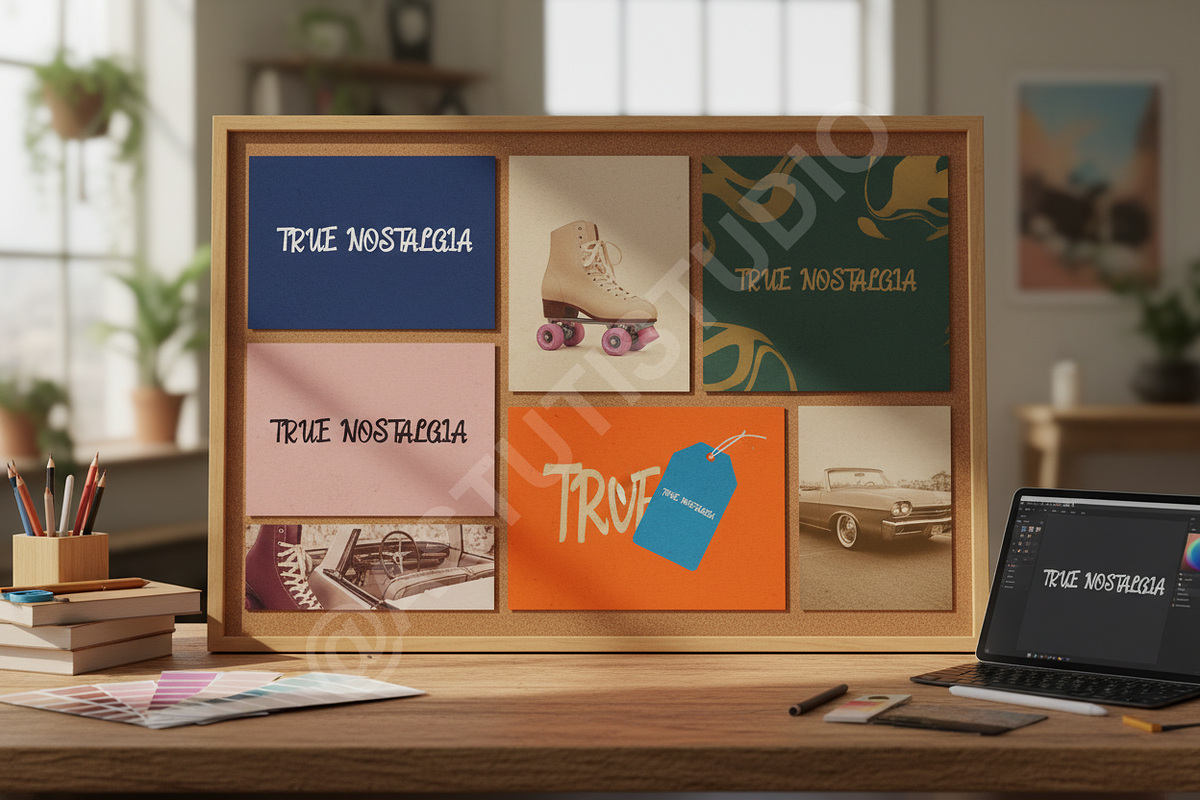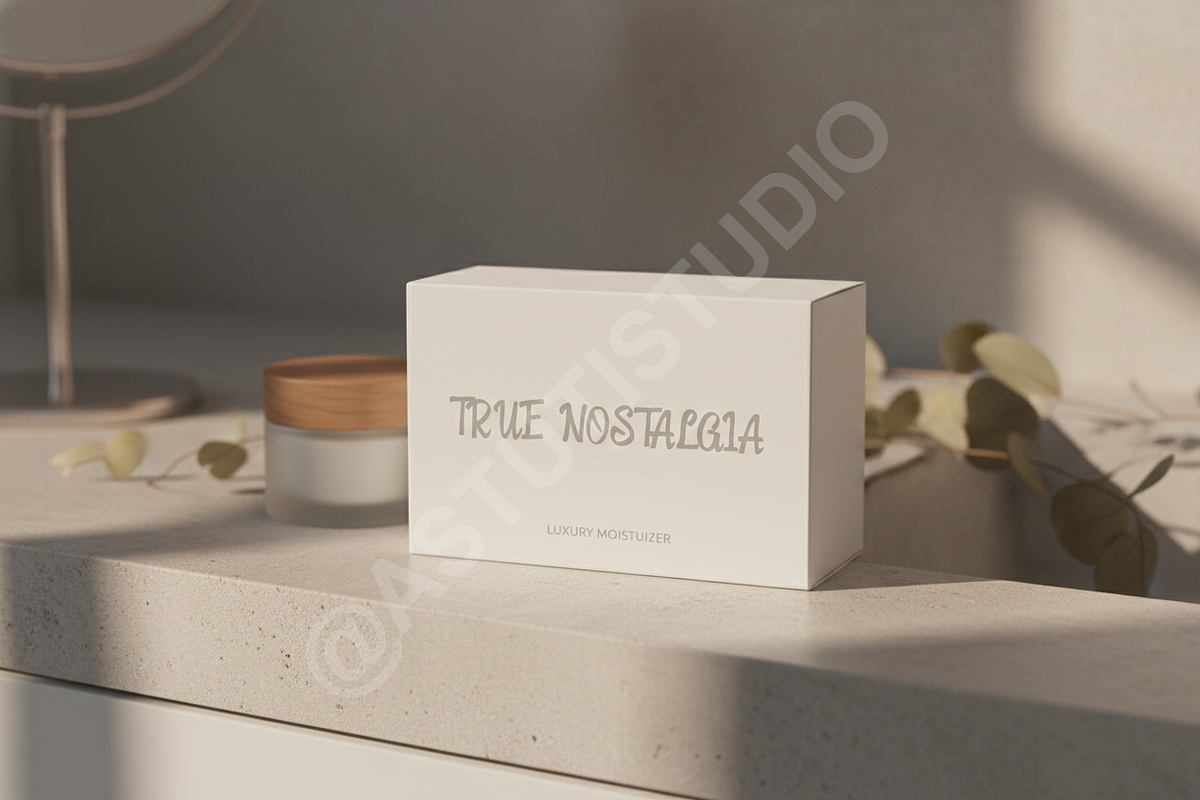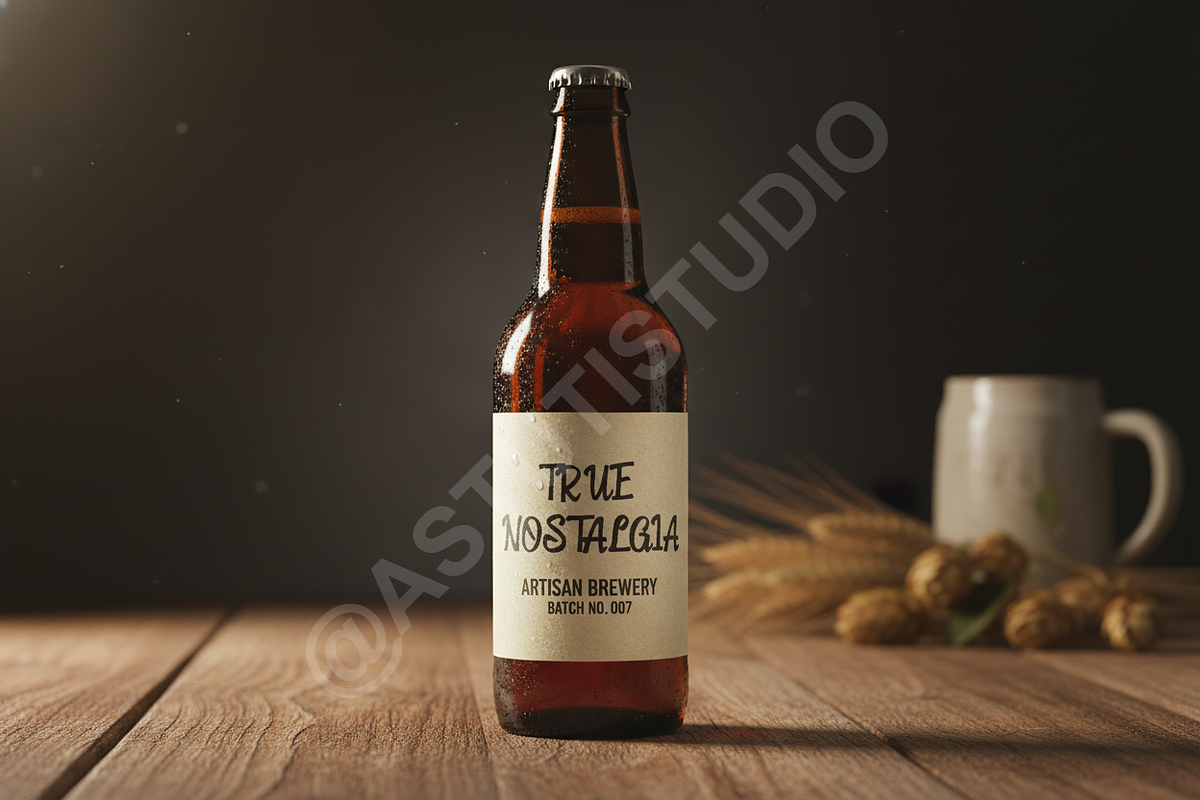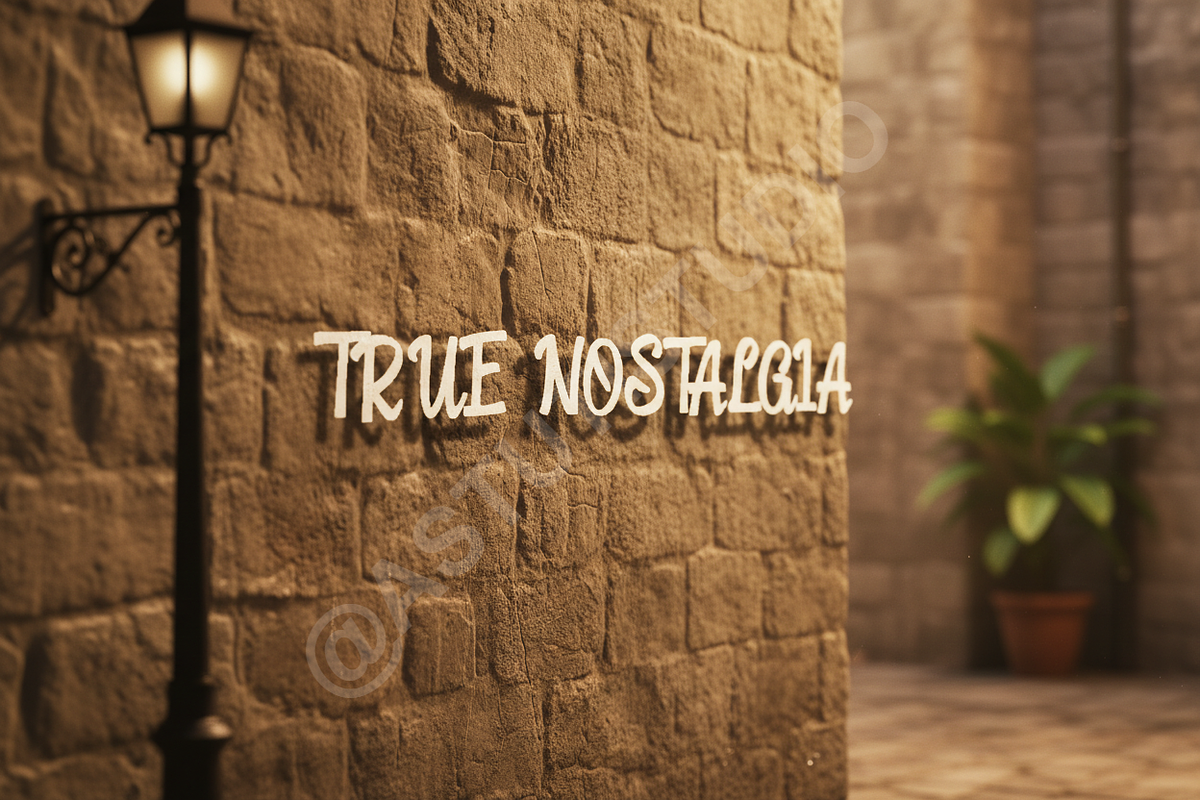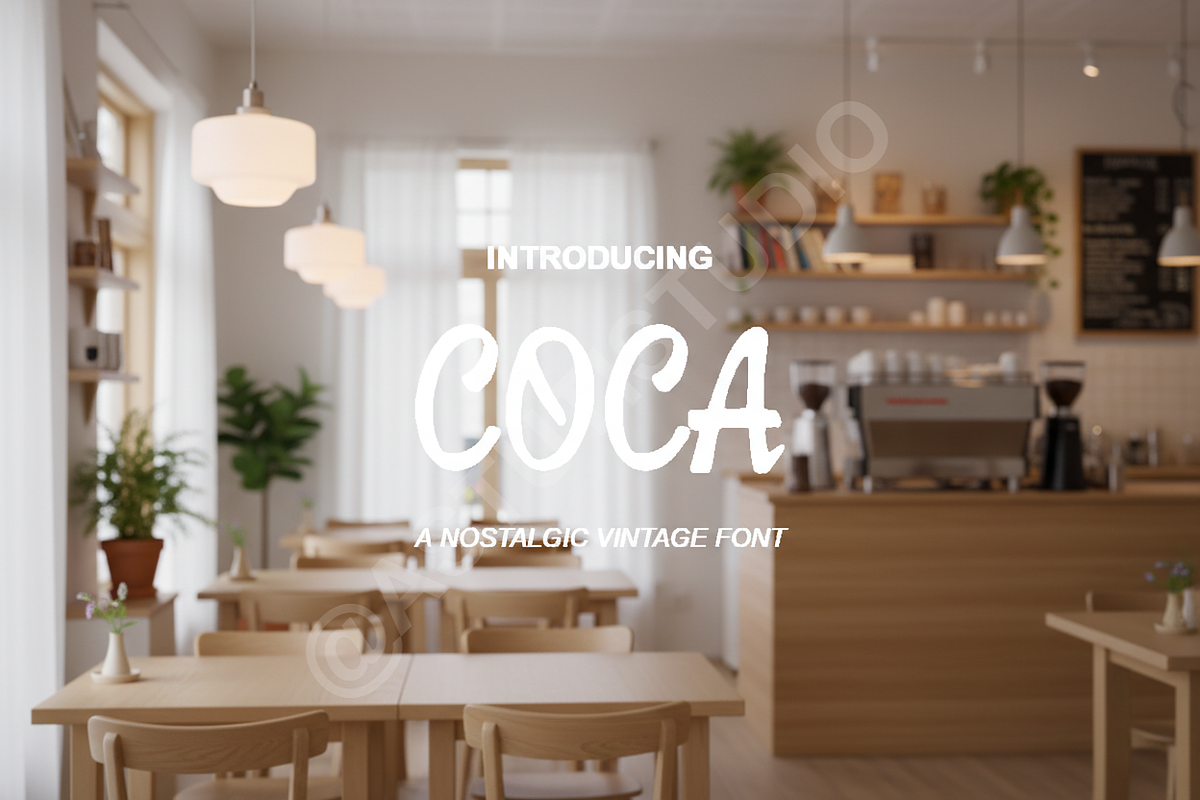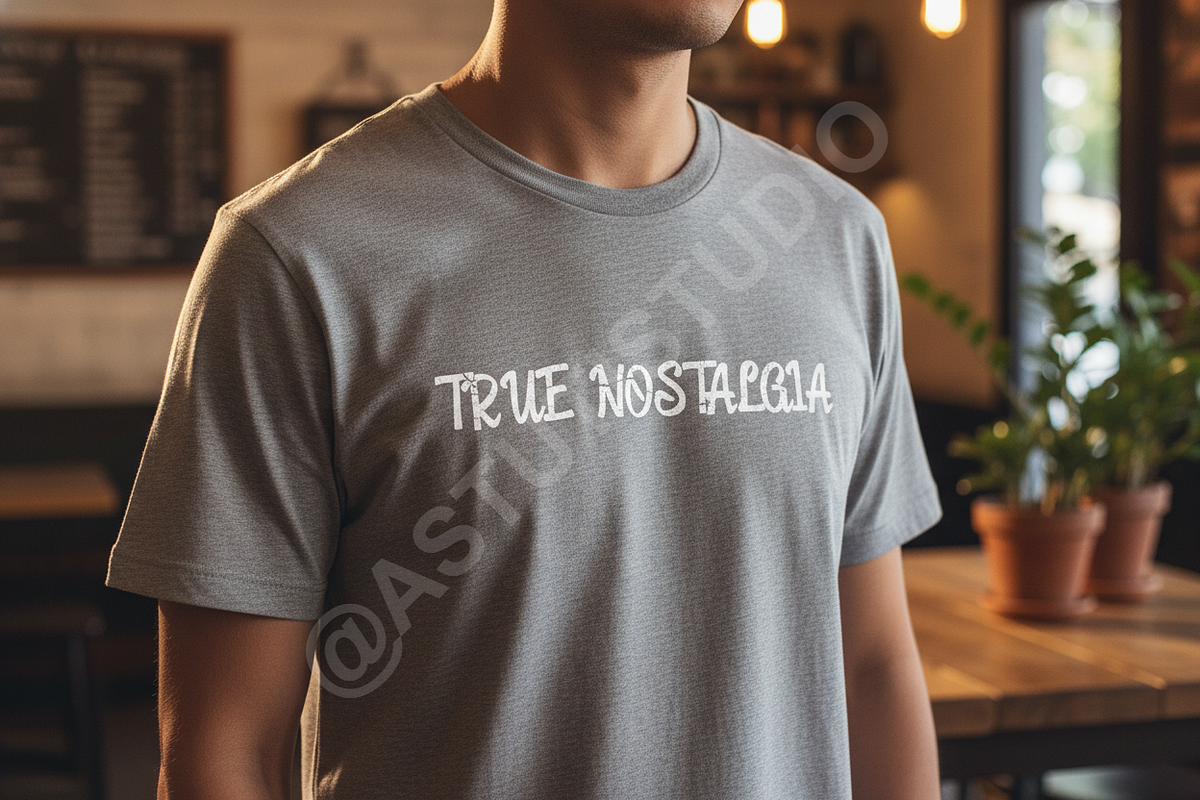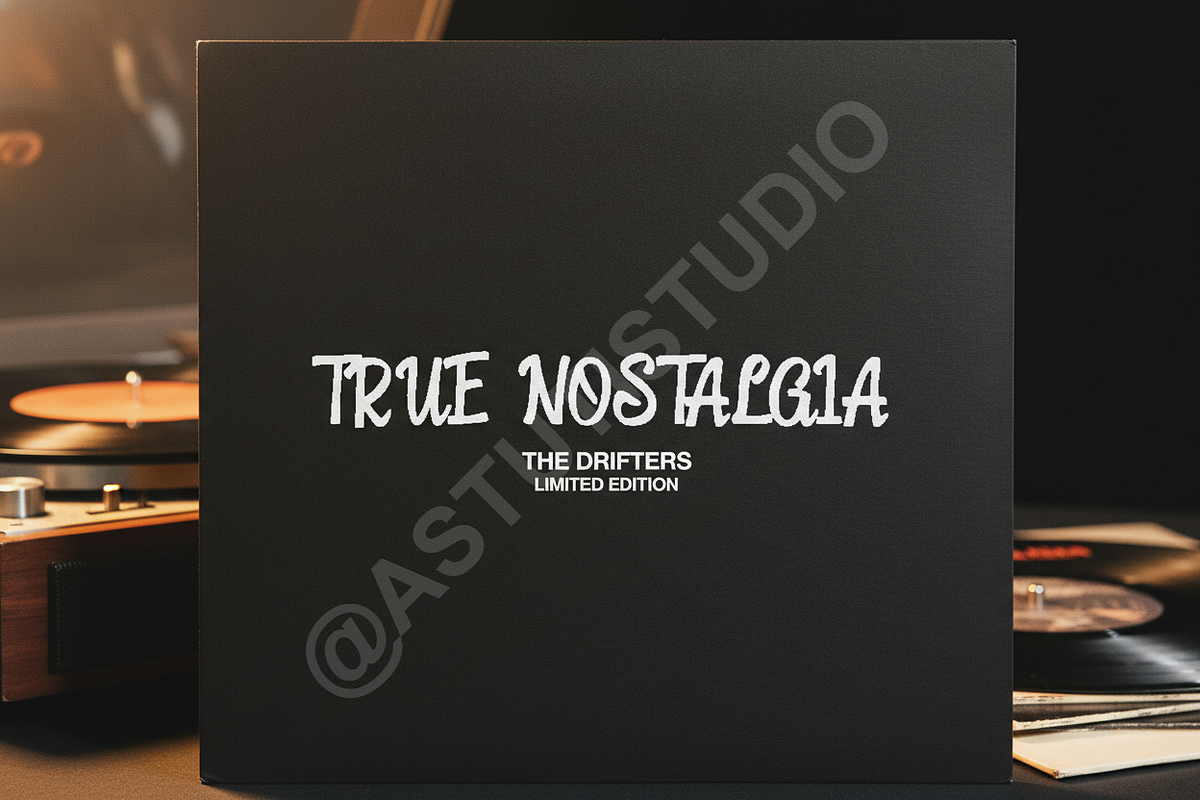
Coca - Luxurious Modern Serif Typefa
Introducing Coca, an impeccably crafted modern serif font designed for the discerning creative. Coca embodies timeless elegance and contemporary sophistication, making it the perfect choice for projects demanding a premium aesthetic. Its balanced letterforms and refined curves elevate luxury branding, editorial layouts, and high-impact social media campaigns.